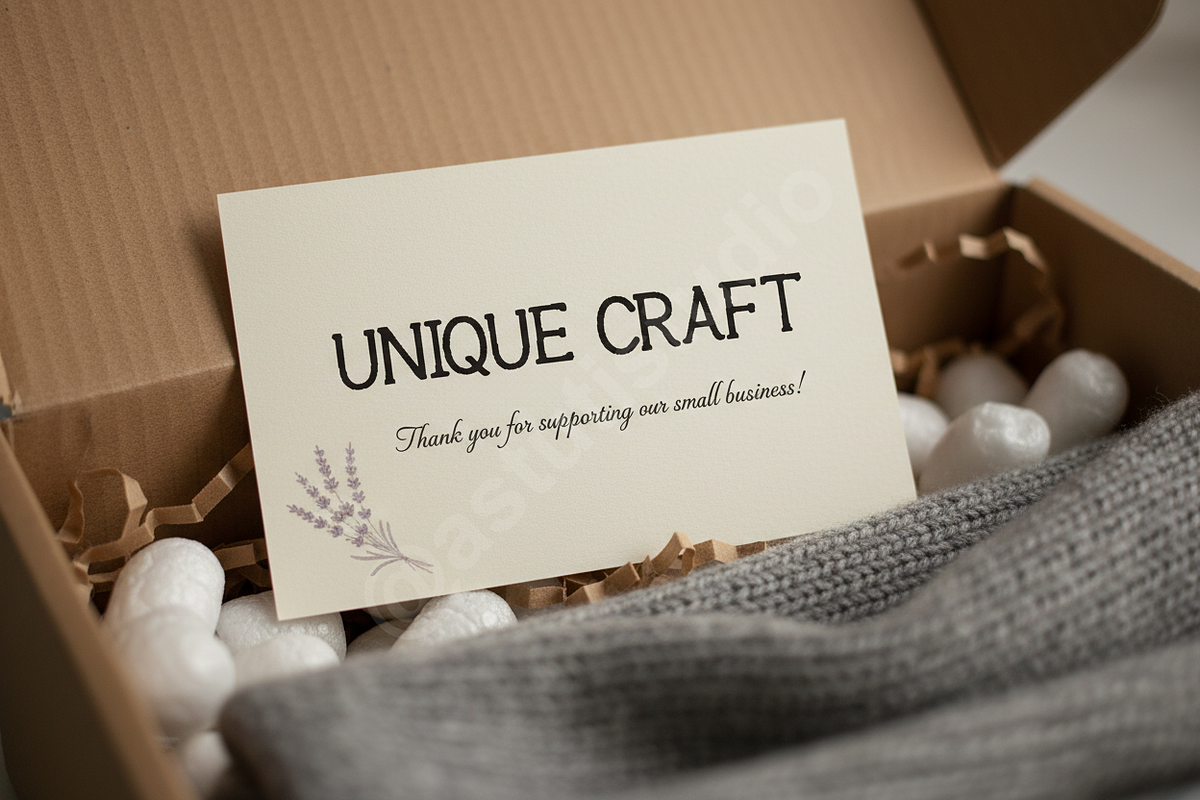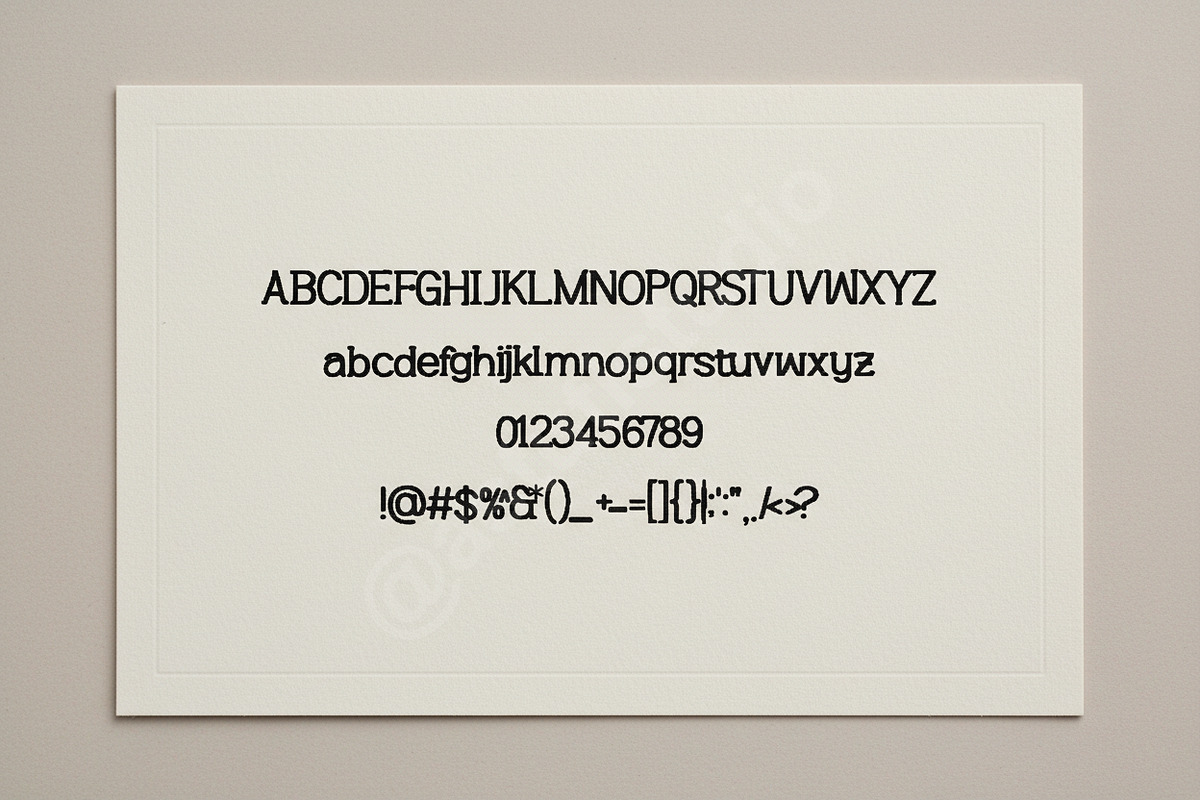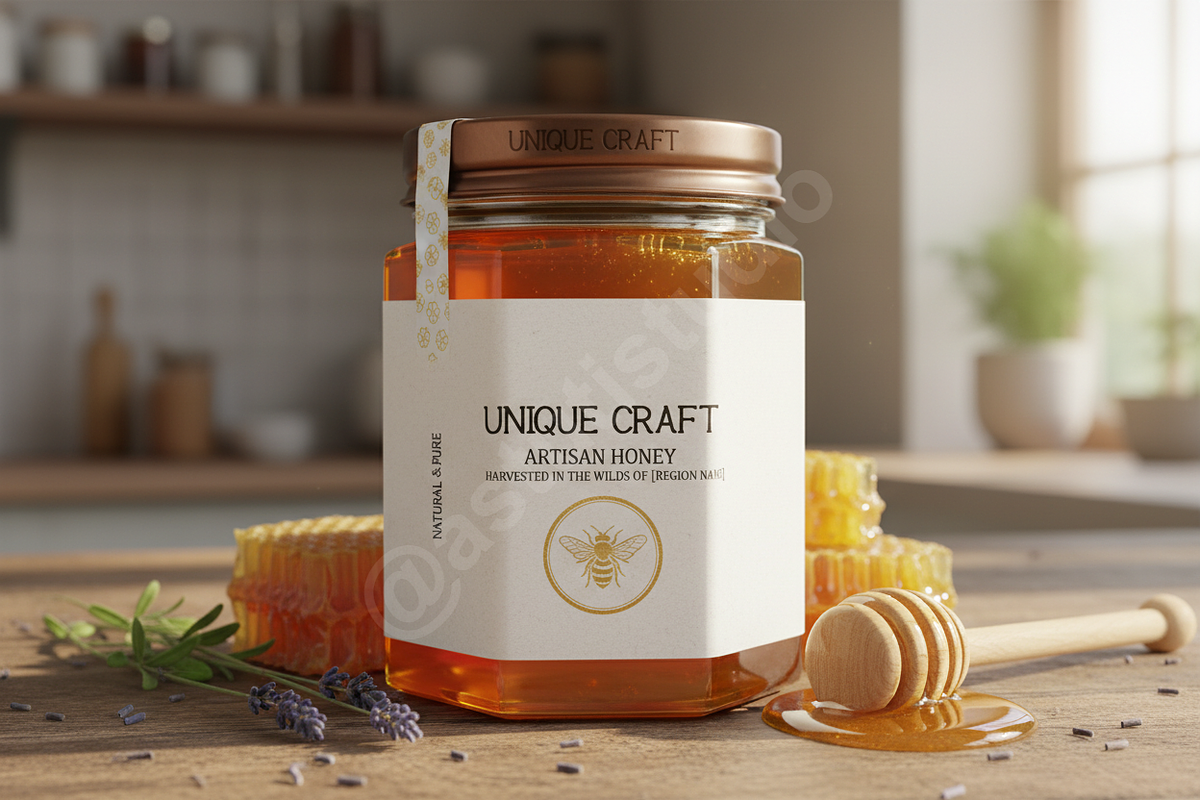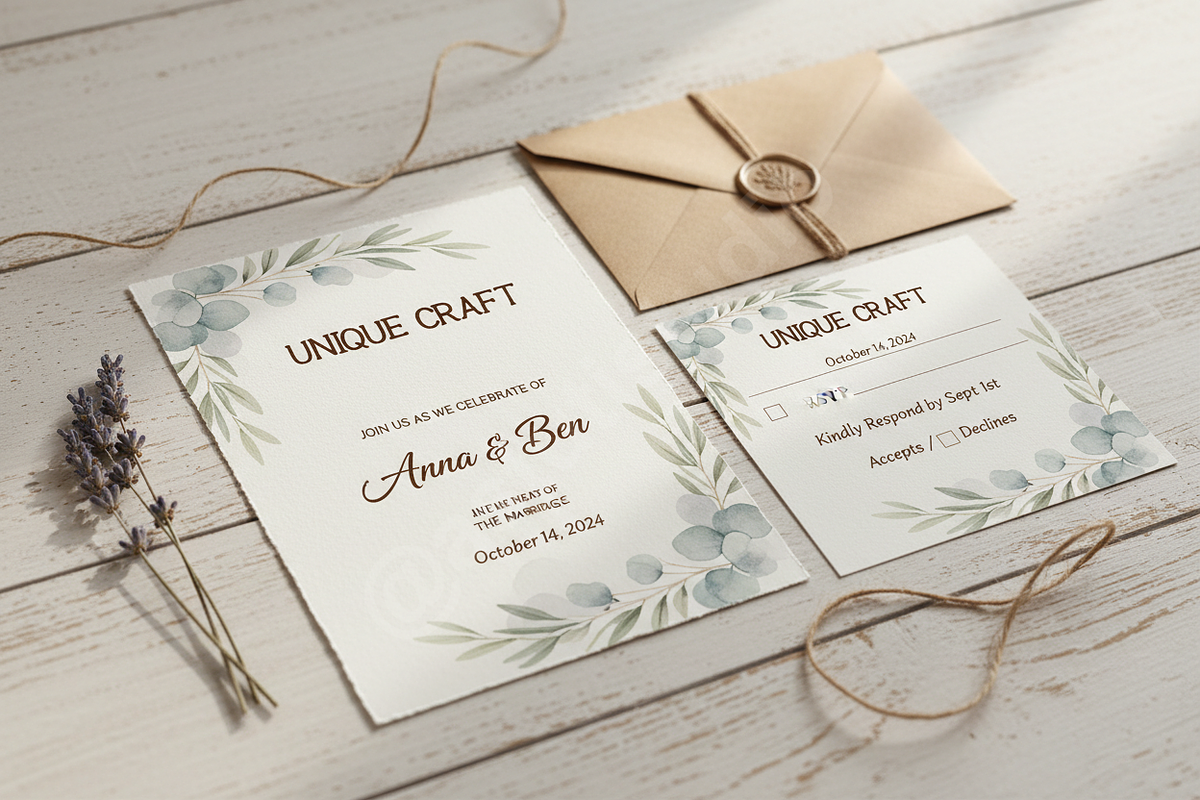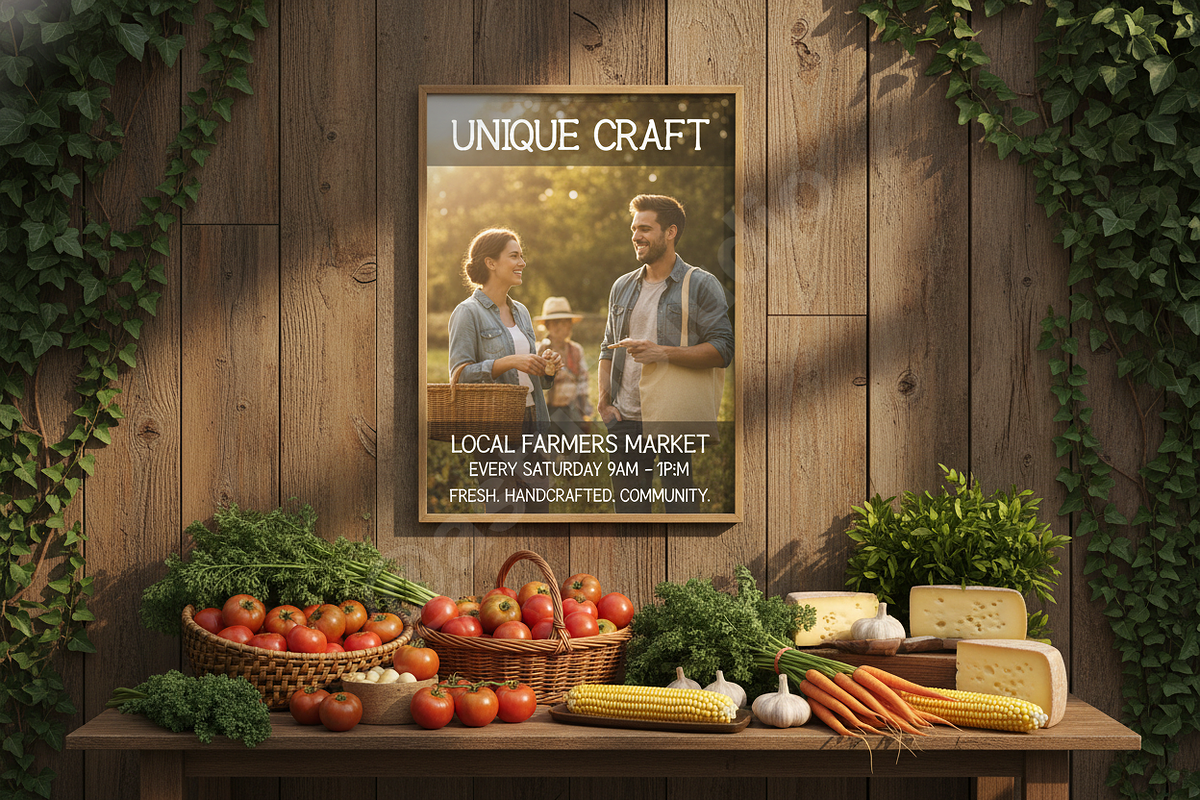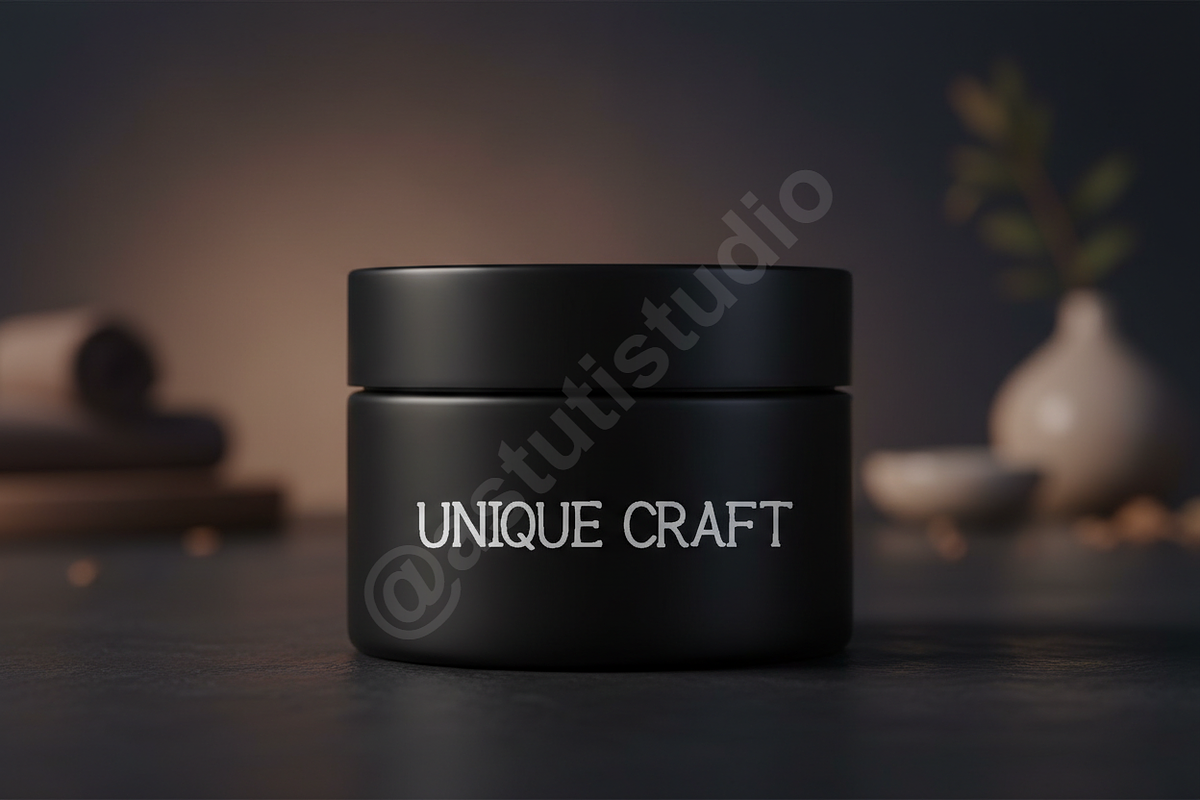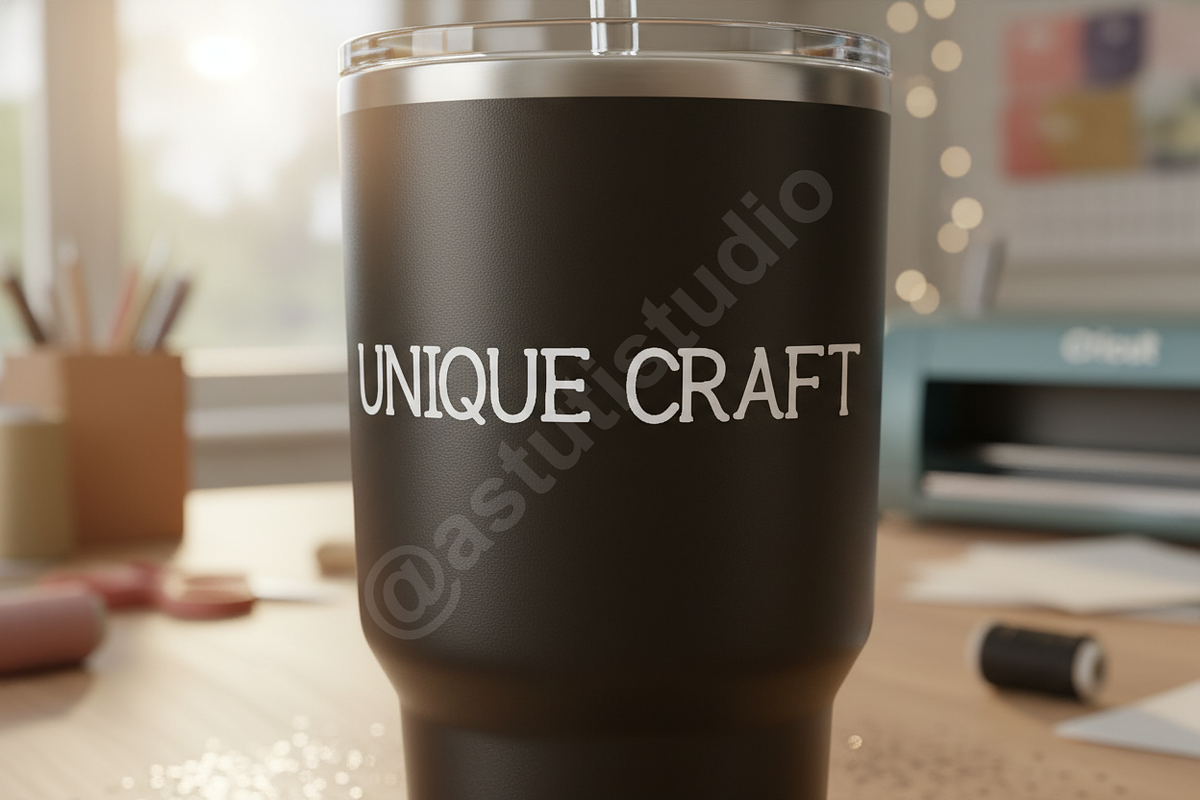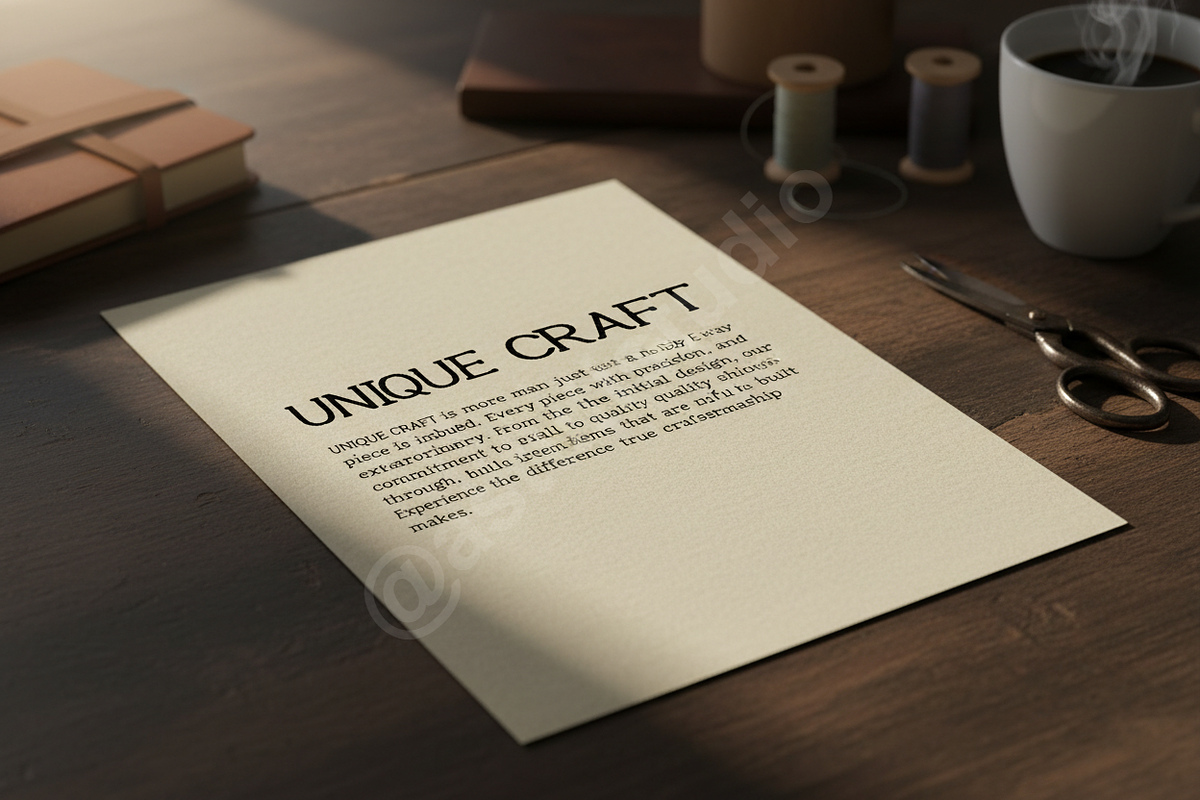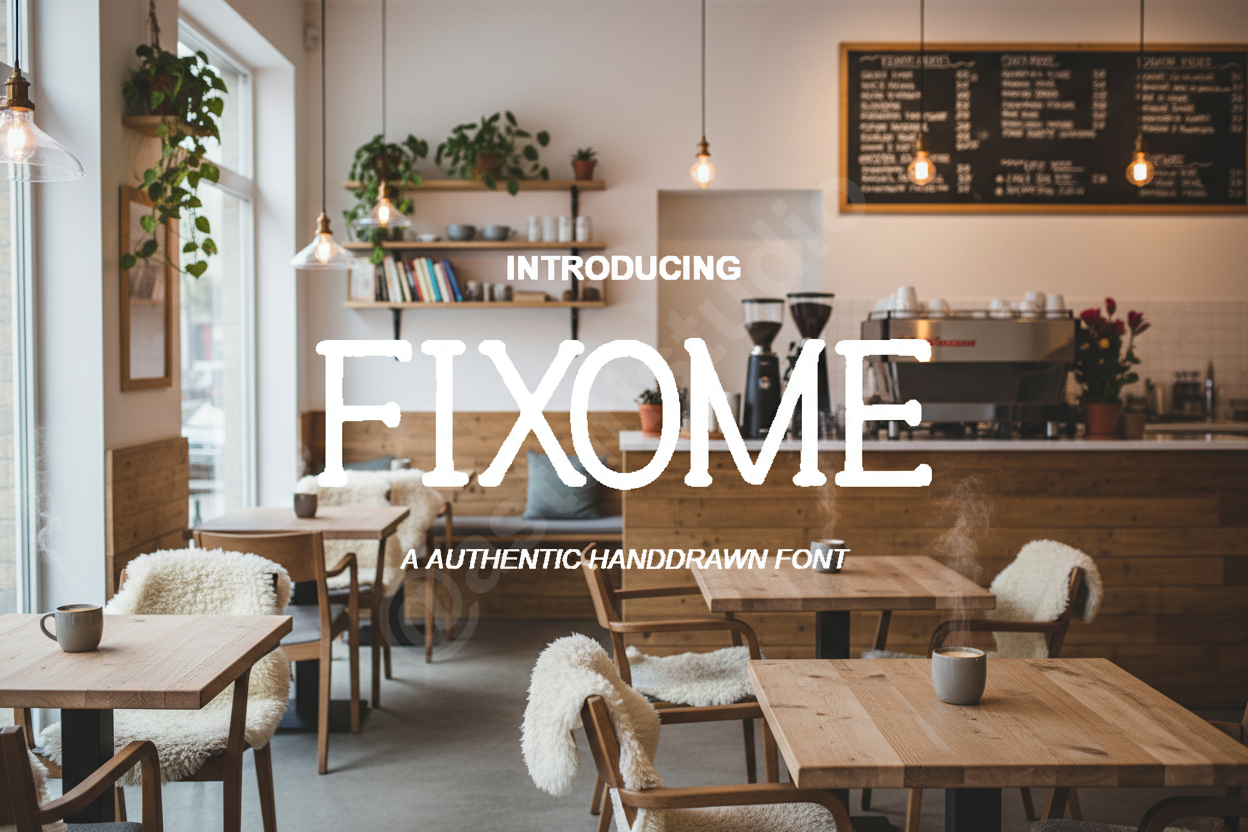
Fixome Typeface — Modern Luxury & Ed
Introducing Fixome, the epitome of modern typographic luxury. Designed with meticulous precision and an unwavering focus on refined detail, Fixome bridges the gap between classic elegance and contemporary minimalist design. It is the essential typeface for studios seeking to elevate their brand narratives, ensuring every piece of communication exudes sophistication and prestige.
- Opentype Features: Includes sophisticated ligatures and stylistic alternates for highly customized typography.
- Multilingual Support: Extensive character set covering 90+ languages for global readiness.
- Optimal Readability: Balanced x-height and precise kerning suitable for both display titles and body copy.
- Versatility: Perfect for impactful editorial layouts, high-end product packaging, and visually driven social media campaigns.
- Extensive Latin Character Set